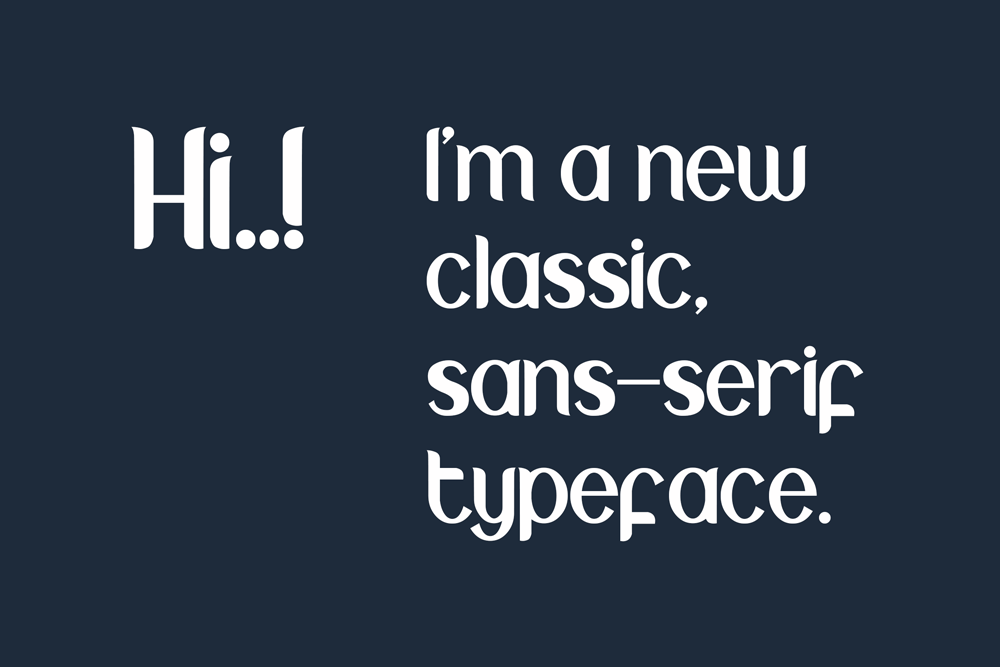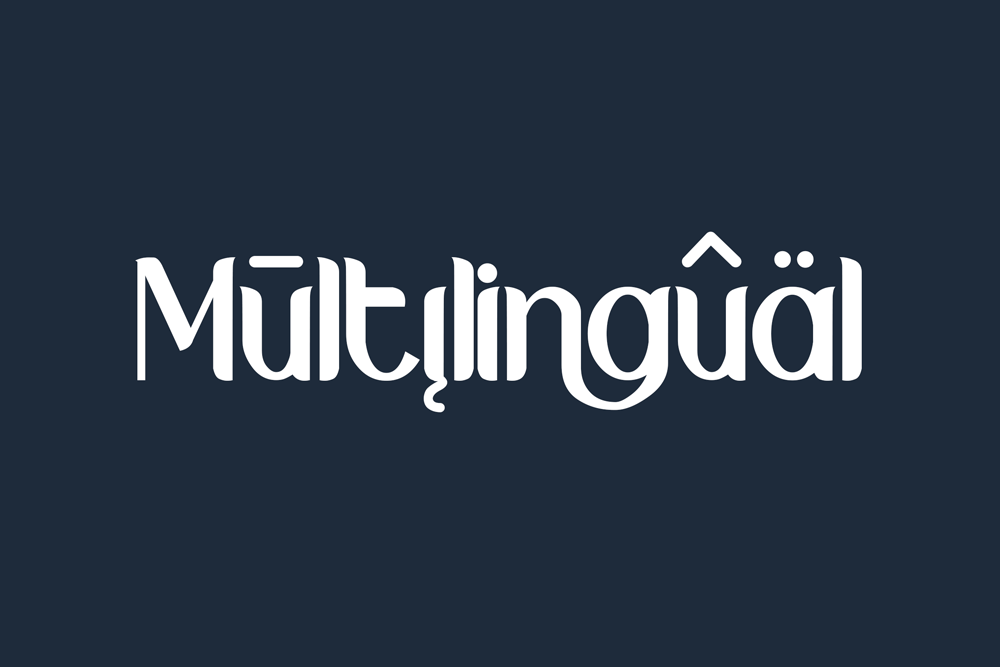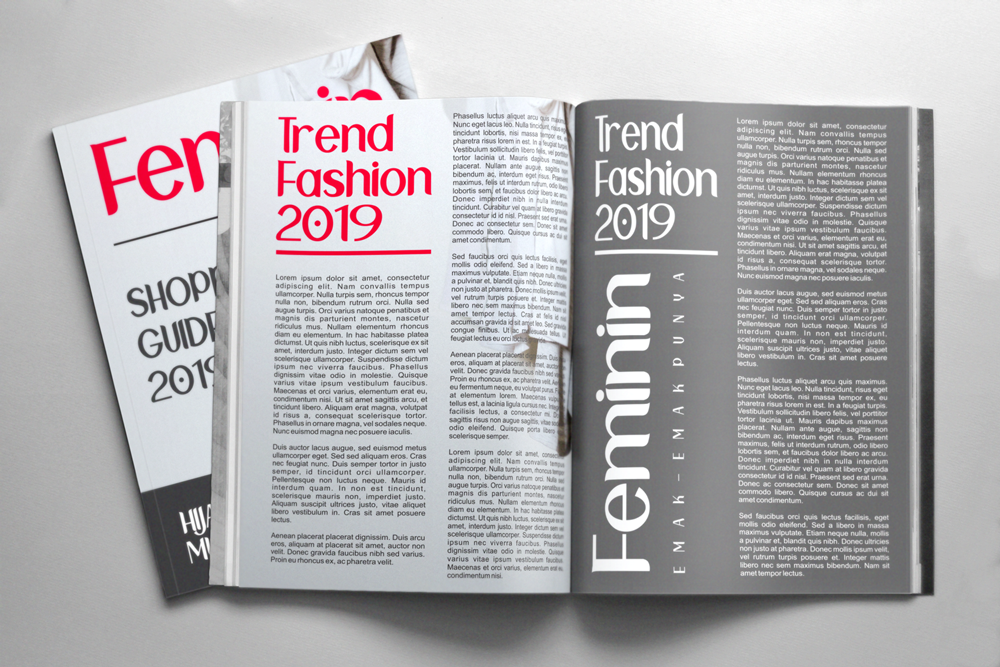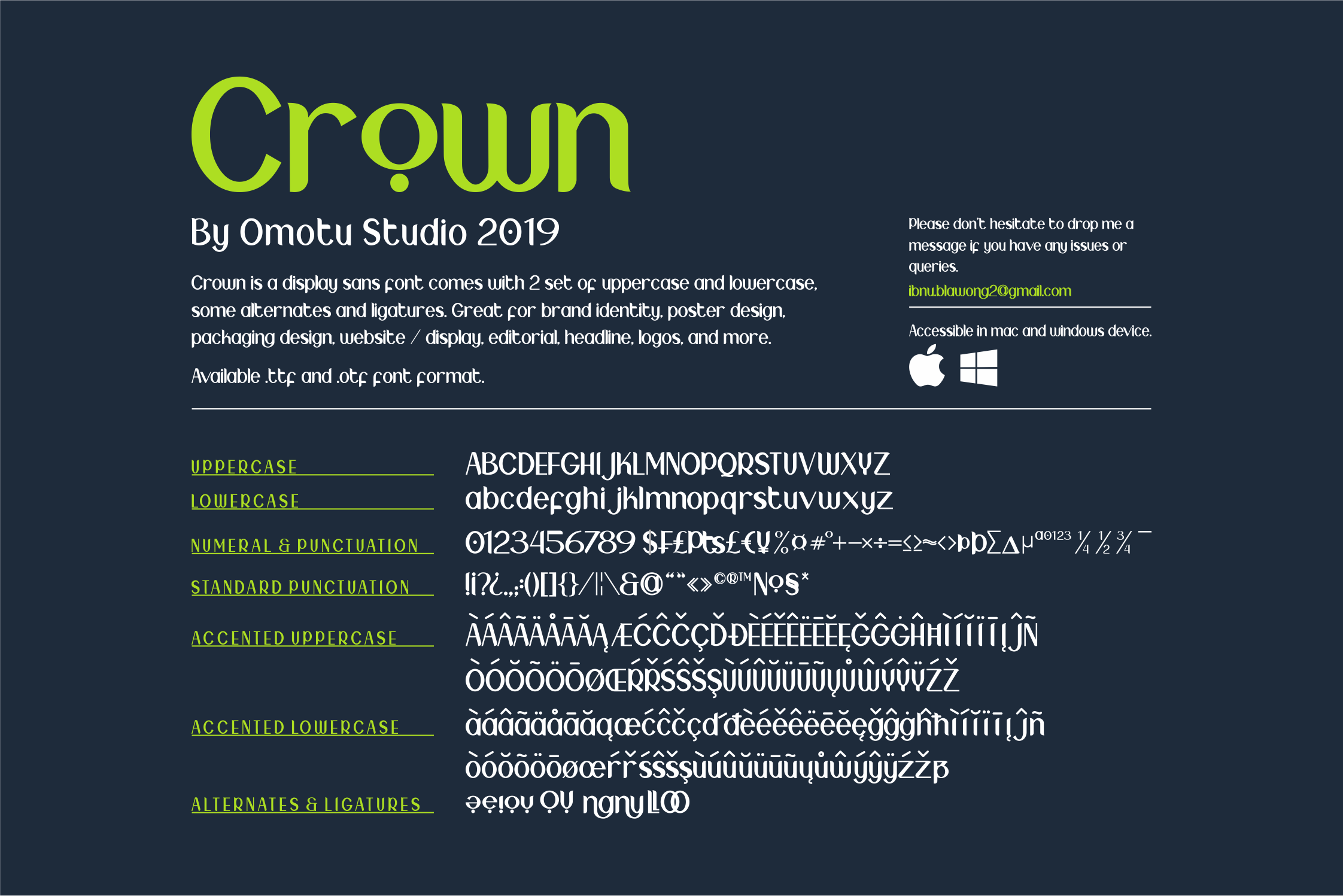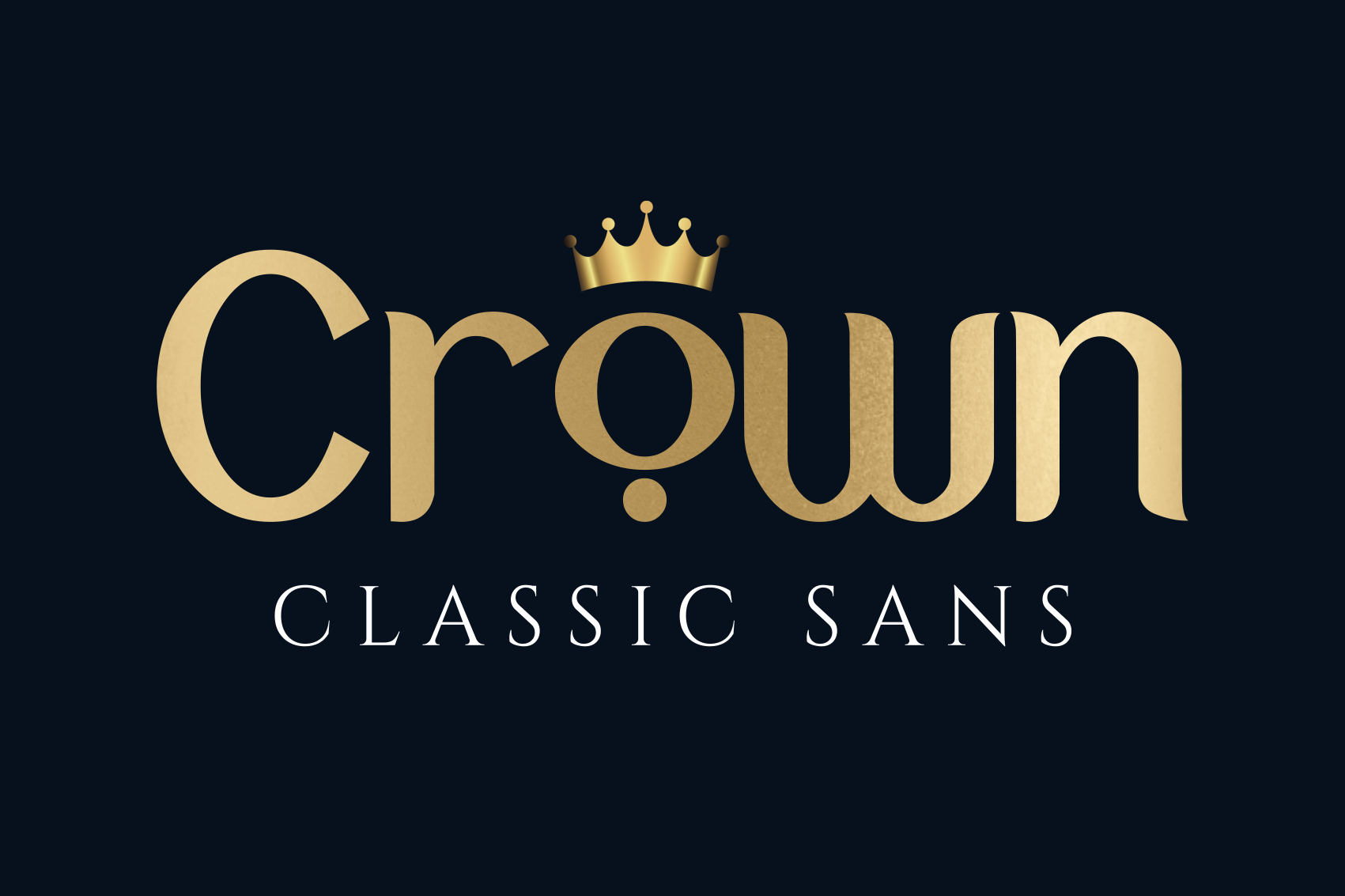
Crown Typeface
Crown is a display sans font comes with 2 set of uppercase and lowercase, some alternates and ligatures. Great for brand identity, poster design, packaging design, website / display, editorial, headline, logos, and more.
1. Uppercase and lowercase characters
2. Multilingual support
3. Opentype features: stylistic alternates, ligature